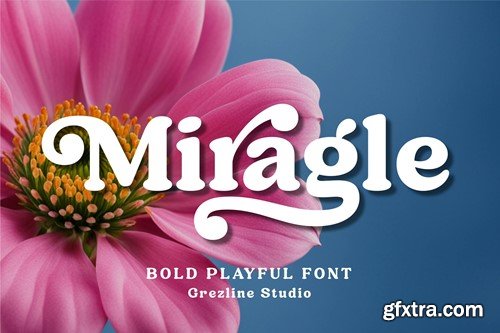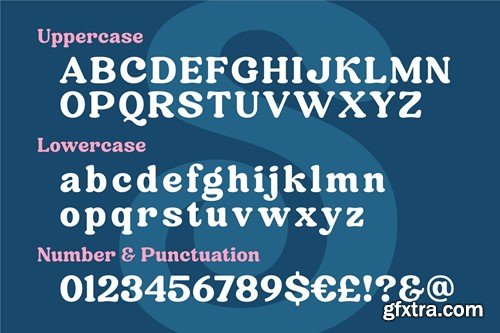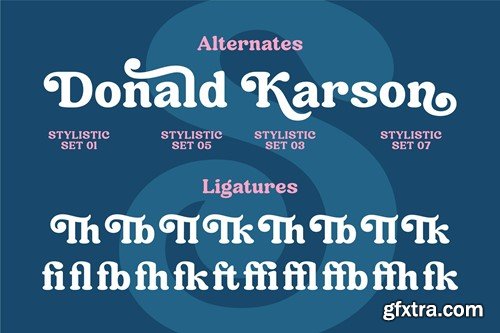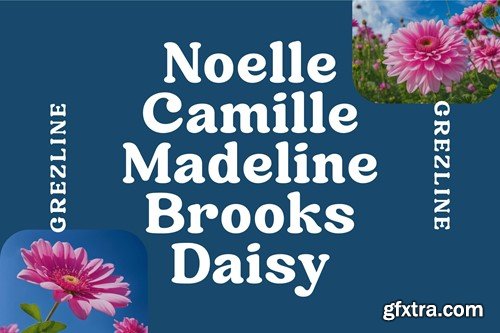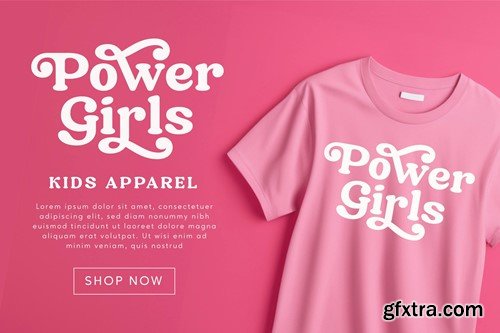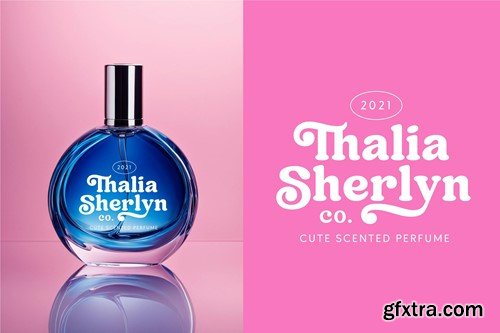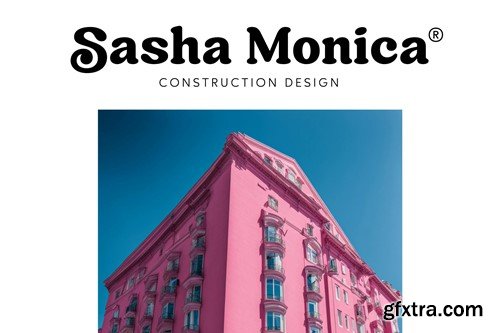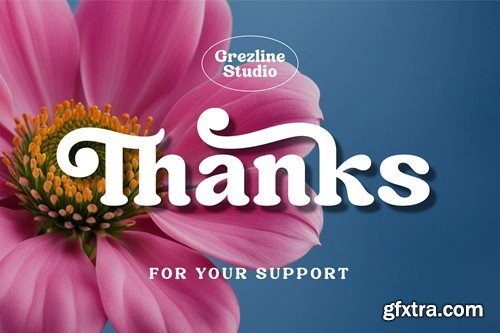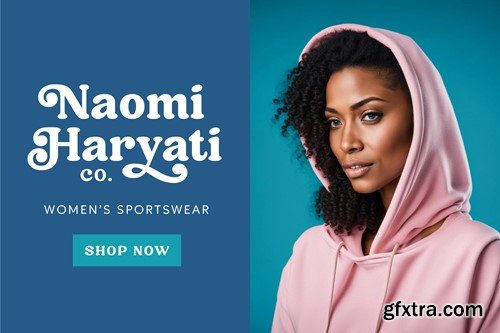
Miragle - Bold Playful Font 8MQPJGJ
Miragle - Bold Playful Font
Miragle is a bold playful font with lot of alternate glyphs. This font is the perfect match for groovy retro design. Miragle font is ideal for logos, posters, packaging, banner, and other creative projects that demand visually aesthetic and distinctive elements.
Feature :
• Ligature & Alternate glyphs
• Multilingual Language
Grezline Studio - Akhmad Reza Fauzi